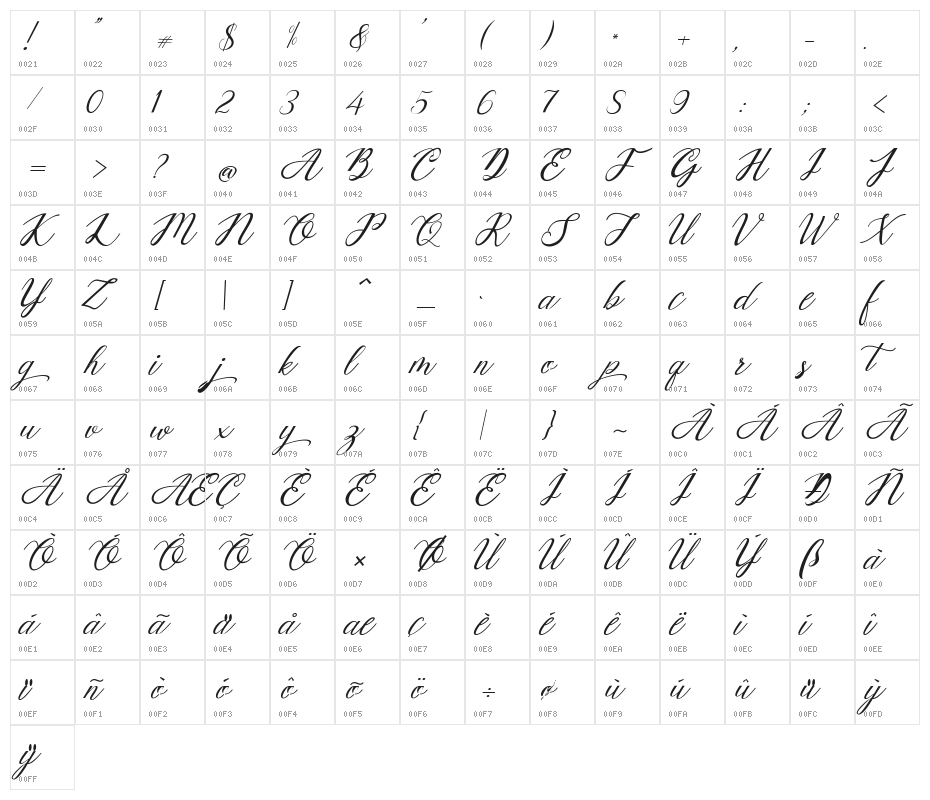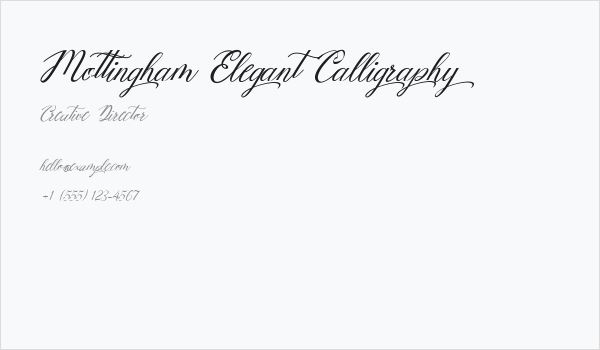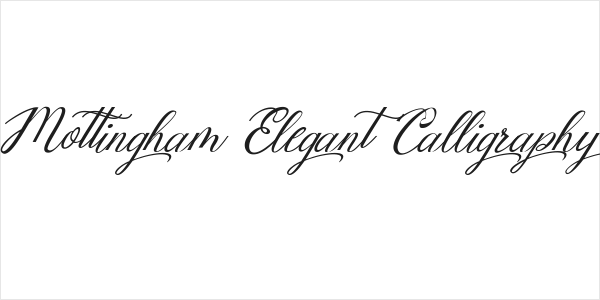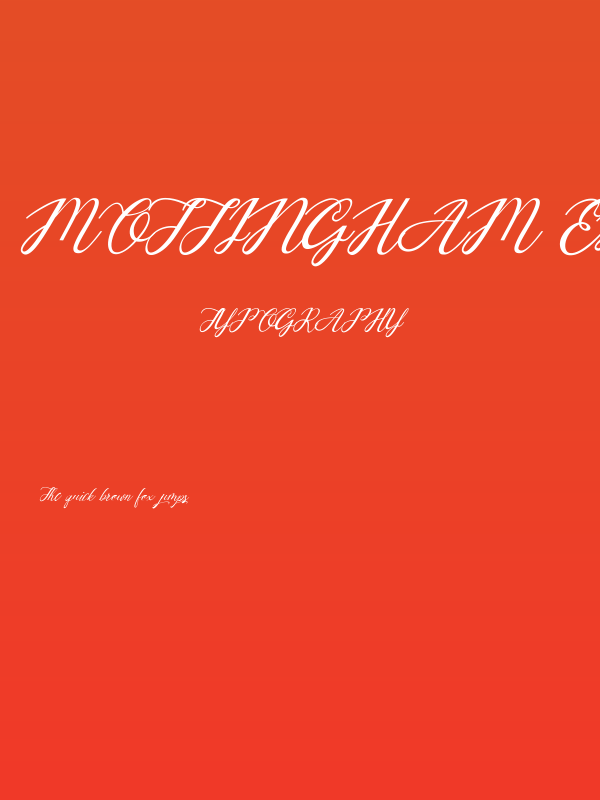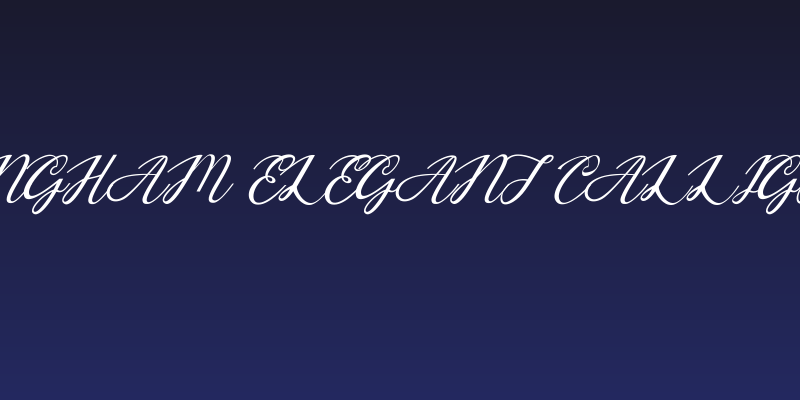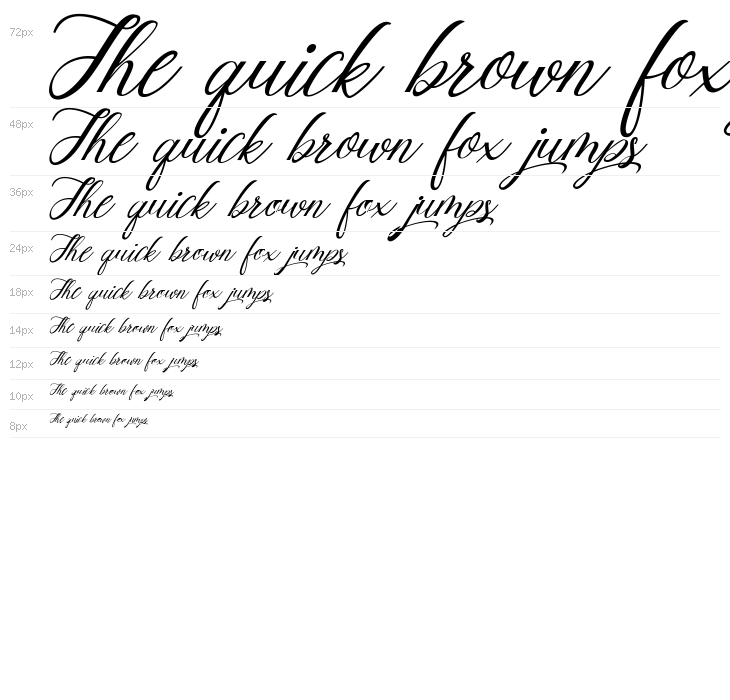
Mottingham Elegant Calligraphy Font
Mottingham Elegant Calligraphy Description
This elegant calligraphy font features flowing, interconnected strokes that exude sophistication and grace. The uppercase letters are ornate with sweeping curves and flourishes, while the lowercase letters maintain a consistent fluidity, enhancing readability. The numerals are stylishly crafted, matching the overall aesthetic of the script. Special characters are thoughtfully designed, integrating seamlessly with the alphabet. This font is ideal for projects that require a touch of elegance and refinement, such as wedding invitations, formal event programs, or luxury branding.
| Overall Style | Elegant, Decorative |
| Use Case | Headlines, Invitations, Branding |
| Proposed Projects | Wedding invitations, formal event programs, luxury branding, elegant stationery. |